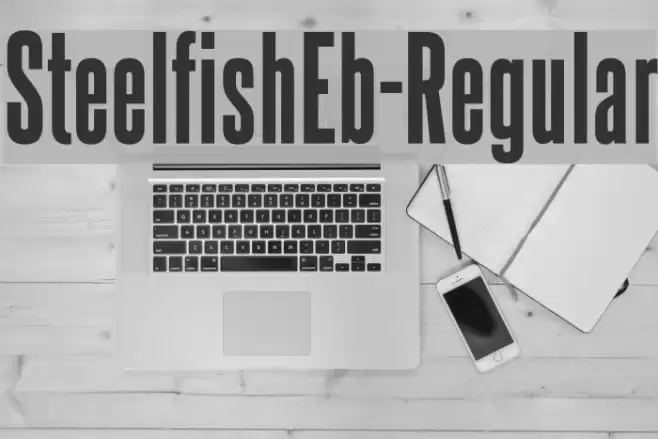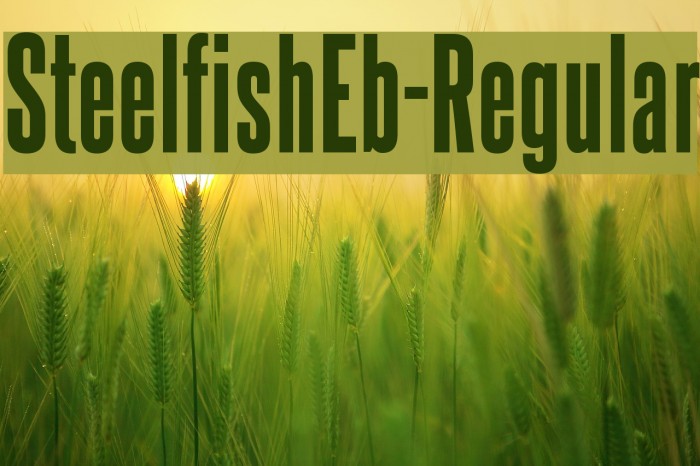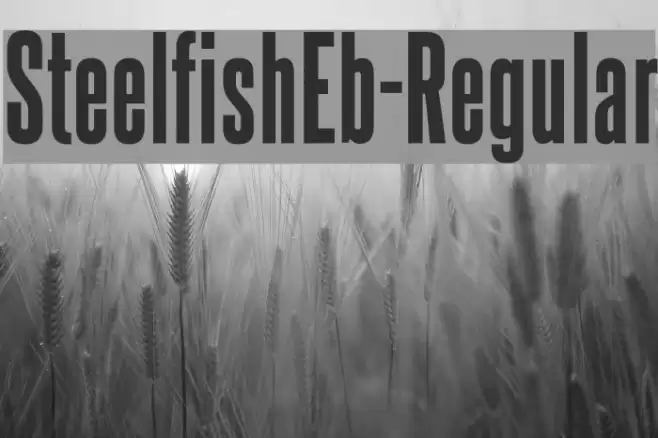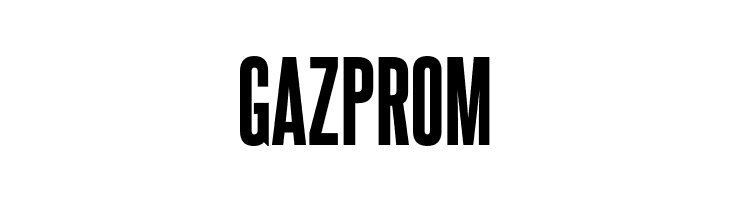
SteelfishEb-Regular Font
SteelfishEb-Regular Description
This font features a bold and condensed design, characterized by tall, narrow letters with a strong vertical emphasis. The uppercase and lowercase letters maintain a consistent width, creating a uniform appearance. The numerals and special characters follow the same condensed style, ensuring cohesion across all text elements. The font's clean lines and lack of serifs give it a modern and assertive look, making it suitable for impactful headlines and attention-grabbing designs.
| Proposed Projects | Ideal for headlines, posters, and branding projects that require a strong visual impact. |